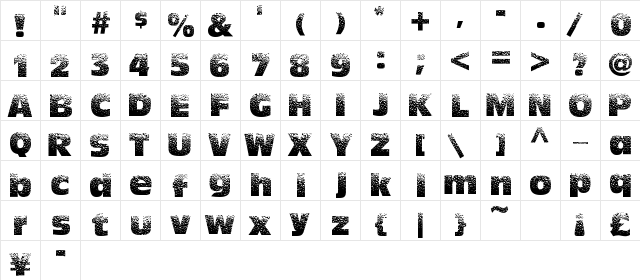
HotSweat Regular
| Foundry | Xerographer Fonts |
| Designer | Max Infeld |
Design Context for HotSweat Typeface
HotSweat is a composed and adaptable typeface that performs quietly and consistently across a wide range of design contexts.